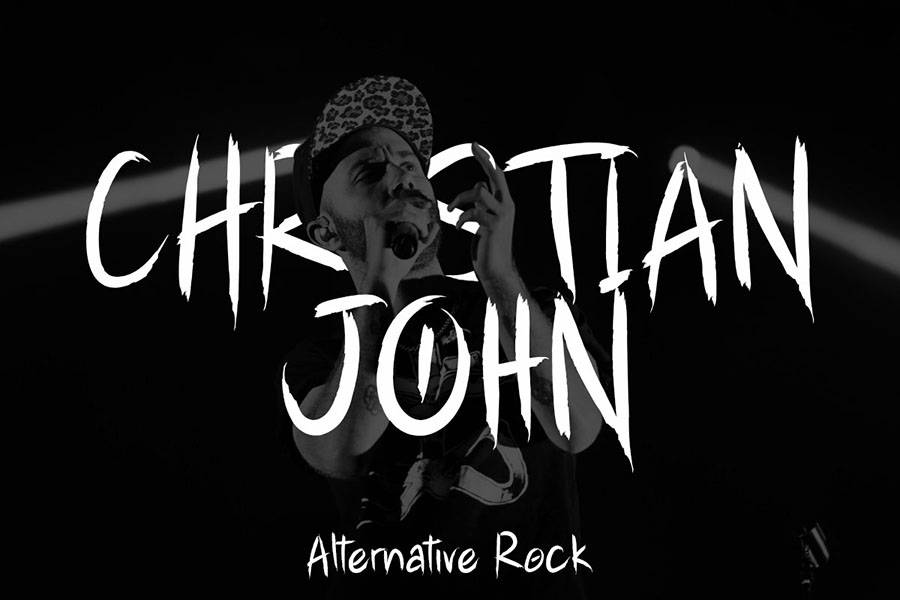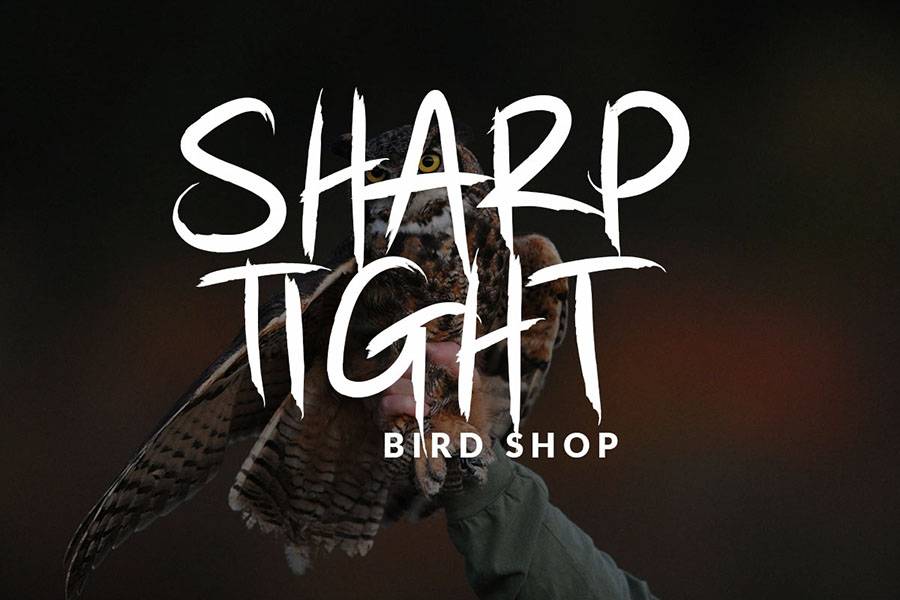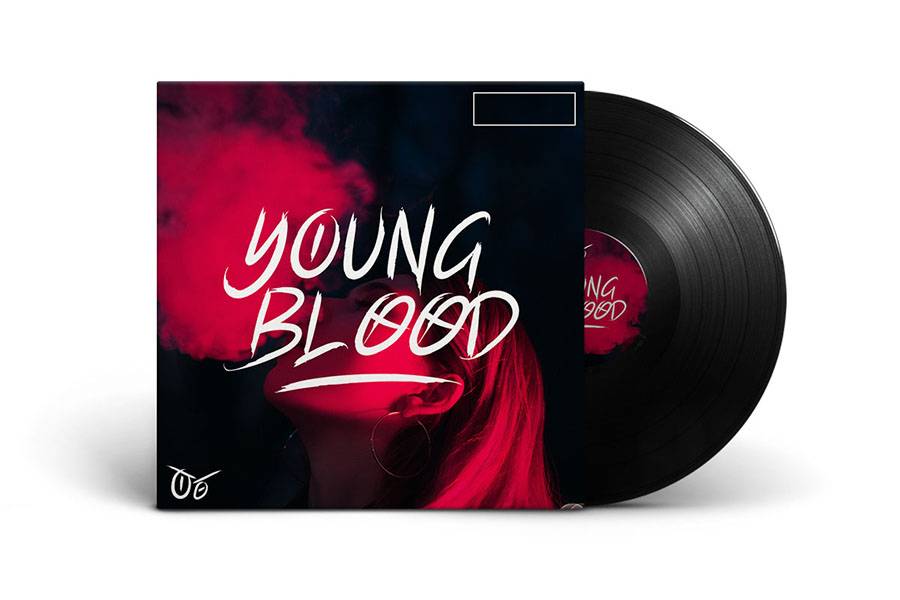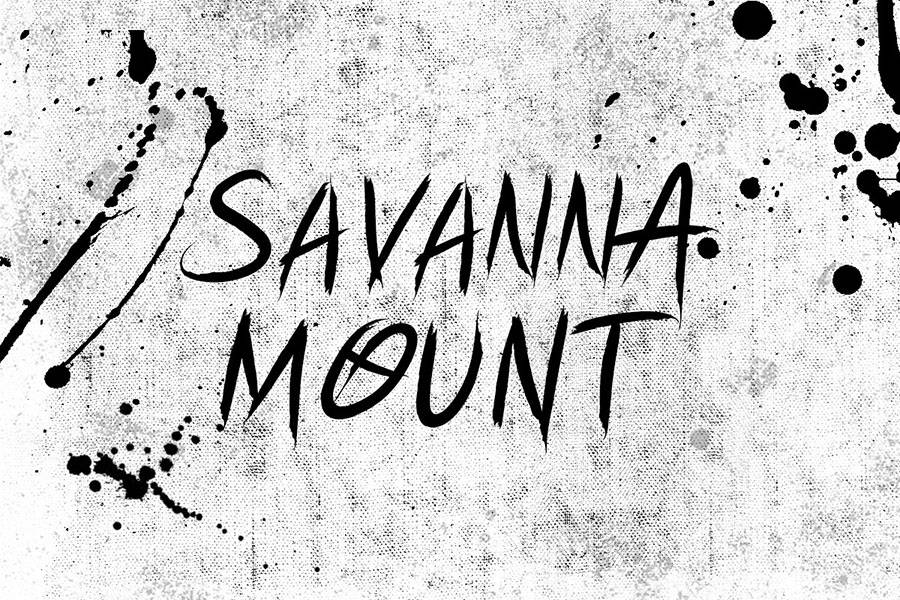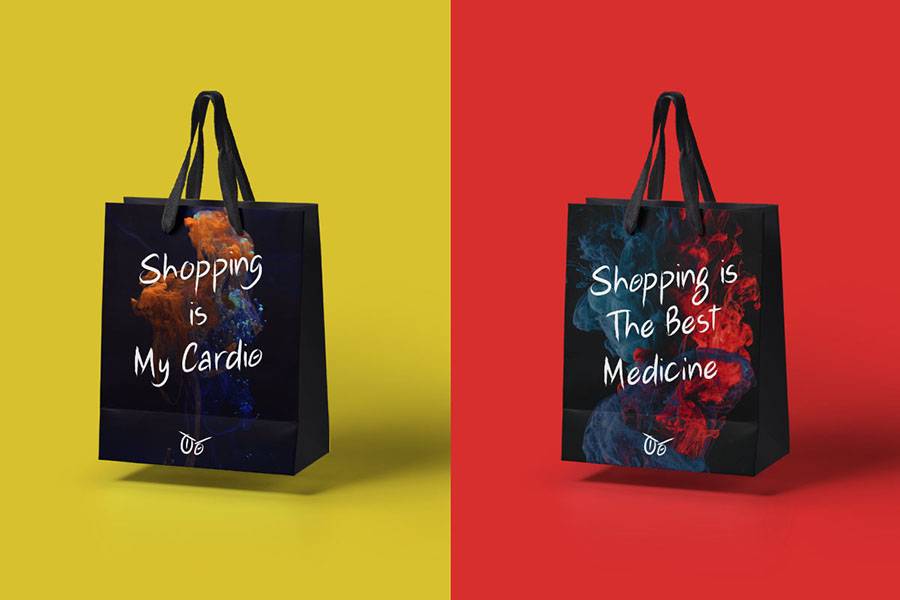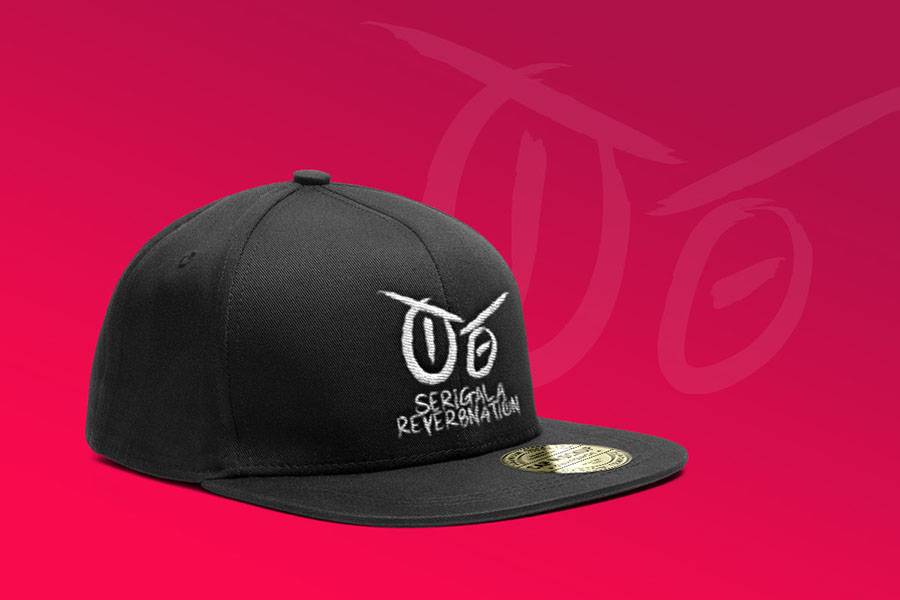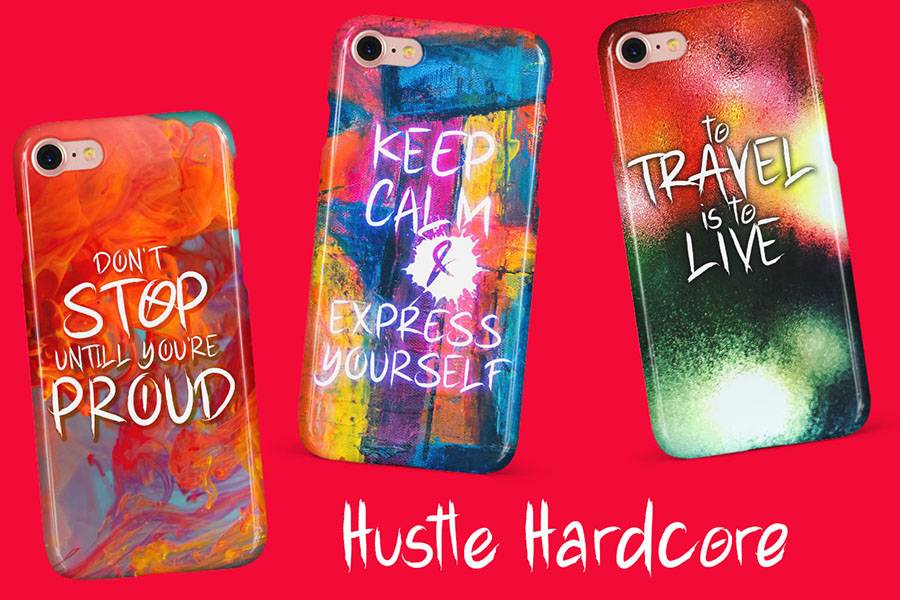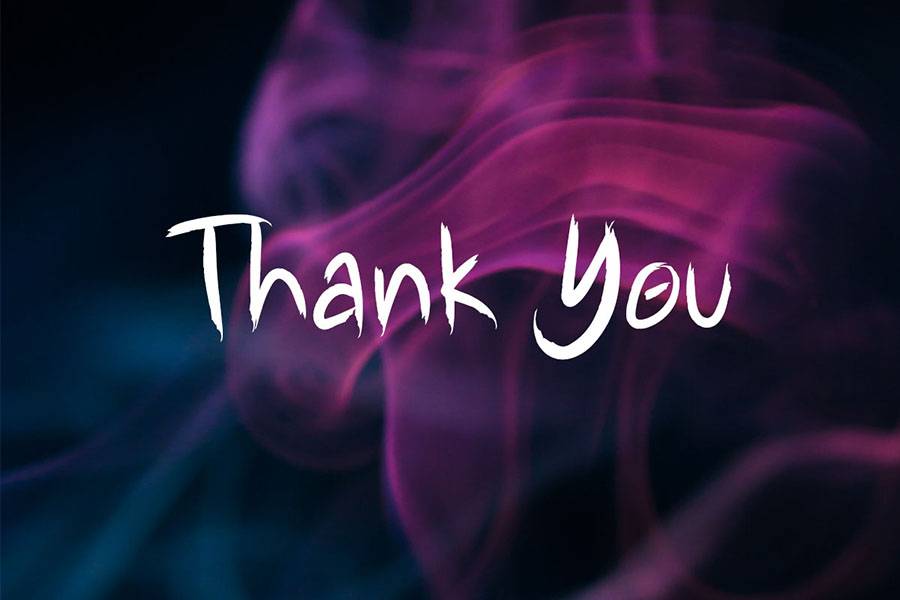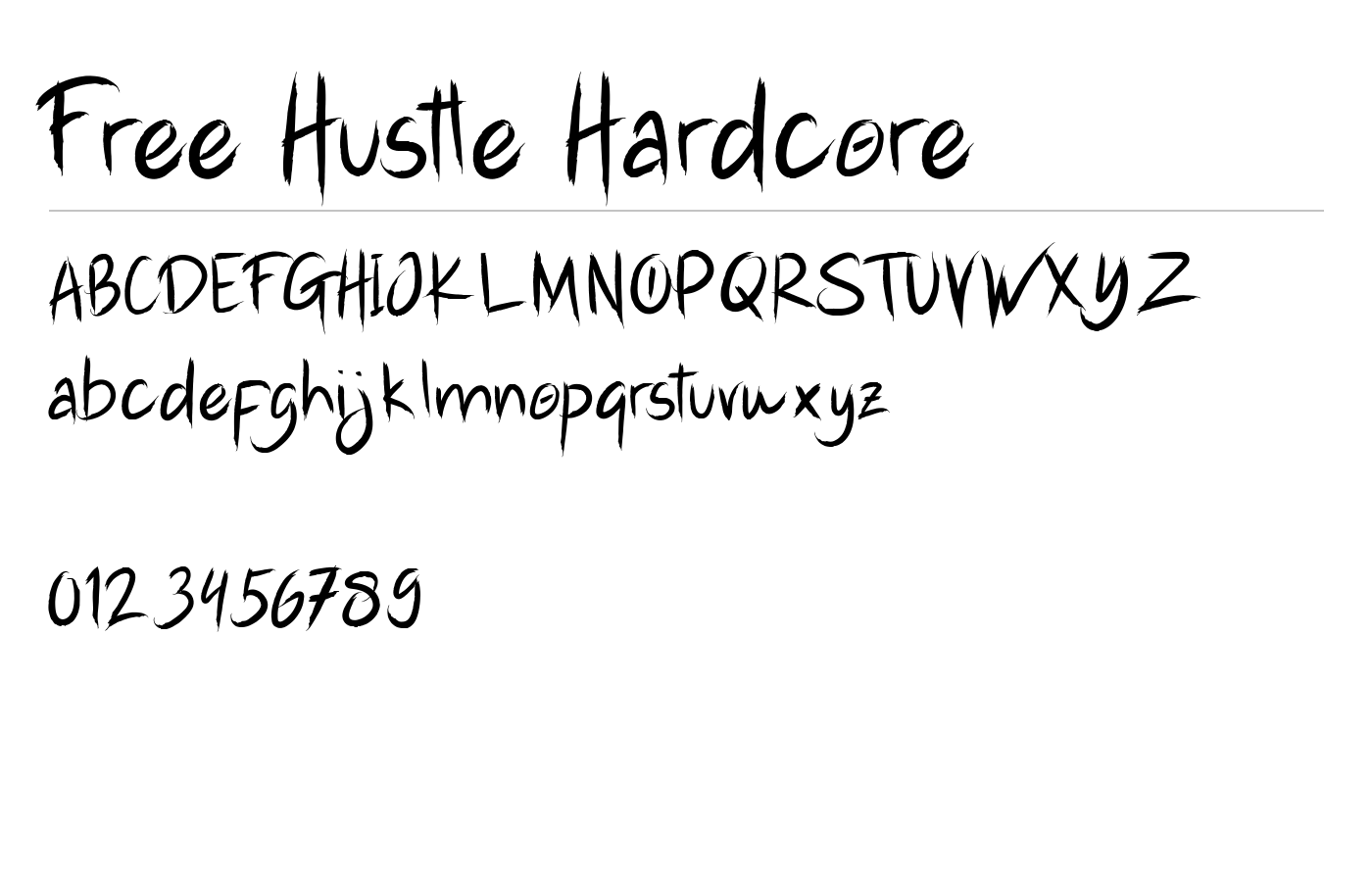
Hustle Hardcore is a bold, energetic brush script font with rough, hand-drawn strokes that give it a raw and dynamic feel. Its tall, slightly condensed letterforms and irregular edges create a sense of movement and urgency, making it perfect for designs that want to convey creativity, rebellion, or an edgy, artistic vibe. This font works well for posters, branding, and any project needing a strong, informal, and expressive touch.
Hustle Hardcore Font Demo
About Hustle Hardcore Font Demo
| Font family | Hustle Hardcore Font Demo |
| Designer | Fathialghazi |